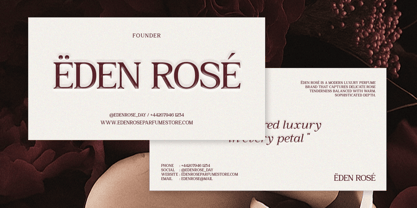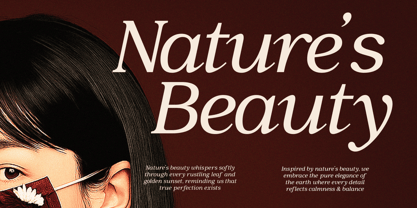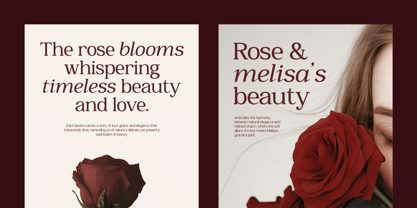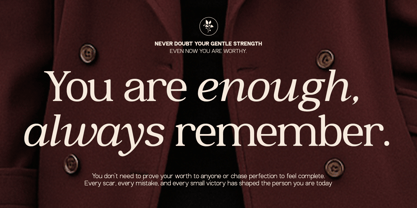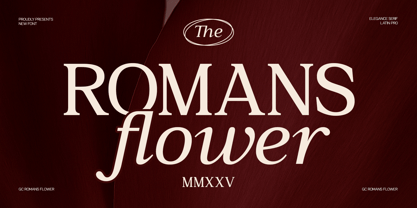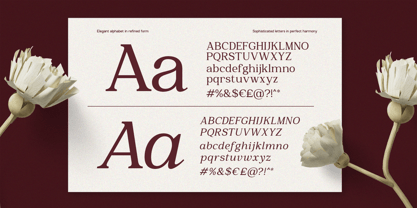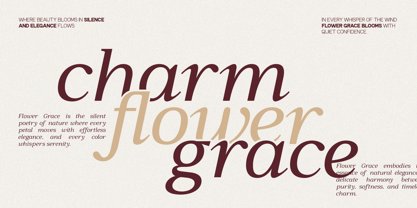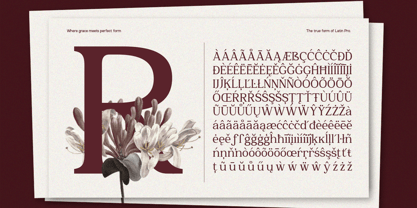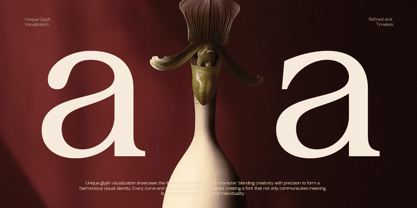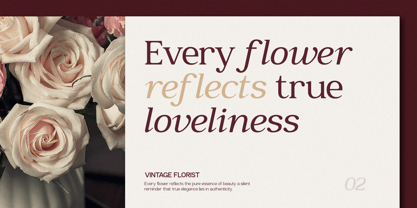
GC Romans Flower
by Onyx Studio
The GC Romans Flower Font Family was designed by Muhammad Hafiizh Solana and published by Onyx Studio. GC Romans Flower contains 2 styles and family package options. More about this family
GC Romans Flower – Elegant Serif is a refined serif typeface that blends classic sophistication with a modern, graceful touch. Crafted with confident letterforms, smooth curves, and elegant detailing, this font delivers a luxurious character with a timeless aesthetic. It is perfect for premium branding, editorials, packaging, wedding designs, and any visual project that demands beauty and high-end elegance. Balanced proportions and refined serif construction provide both sophistication and readability, making GC Romans Flower ideal for bold headings as well as delicate supporting text. Whether used for display or editorial purposes, it brings a polished and distinguished presence to your typography. Features: Uppercase & Lowercase Numbers & Punctuation Elegant Serif Construction Multilingual Support (170+ Languages) Bring a touch of luxury, grace, and timeless refinement to your design projects with GC Romans Flower – Elegant Serif.
Designers: Muhammad Hafiizh Solana
Foundry: Onyx Studio